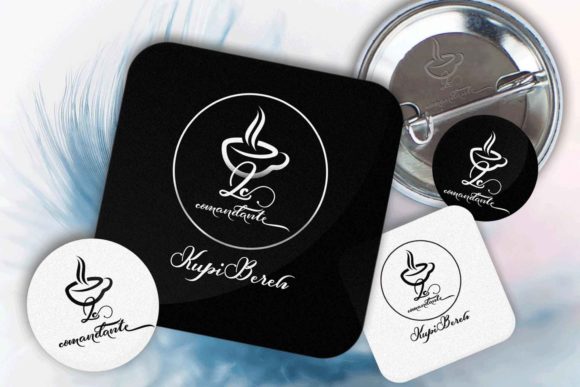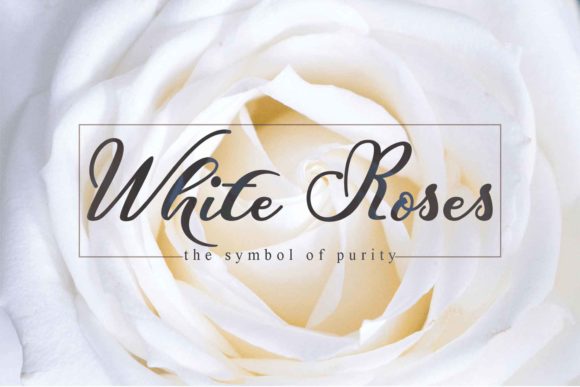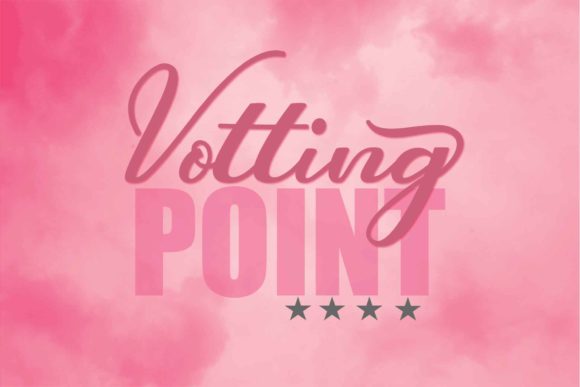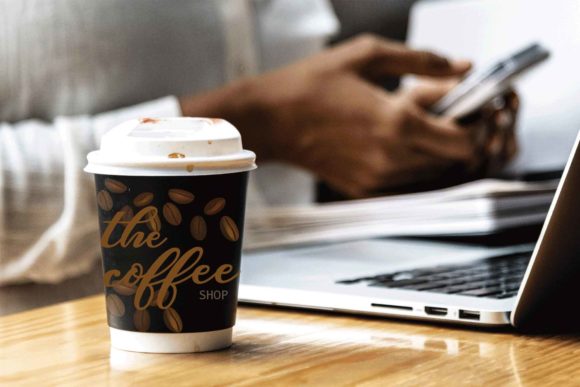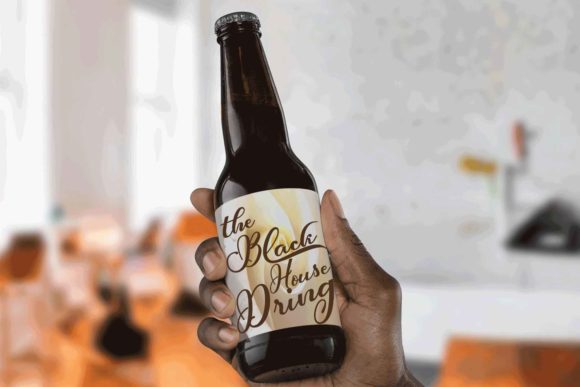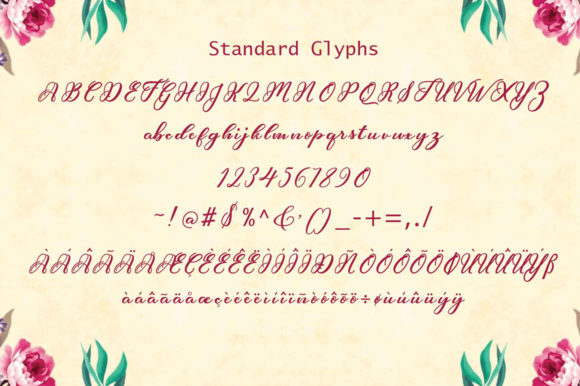
Discover the Joy of Hunkydory Font
Have you ever found yourself staring at a blank canvas, searching for the perfect font to bring your creative vision to life? It’s a feeling we’re all too familiar with – the blank page staring back, begging for inspiration. But what if we told you that there’s a font that can spark that creative spark, and make your designs shine with its unique charm?
Enter Hunkydory Font, a sweet and friendly handwritten font that’s perfect for designers who crave a natural, one-of-a-kind style. This versatile font is designed to be PUA encoded, making it easy to access all of its beautiful glyphs and swashes. Whether you’re working on a children’s book, a wedding invitation, or a social media campaign, Hunkydory Font is the perfect companion to bring your ideas to life.
With Hunkydory Font, the possibilities are endless – and that’s what makes it so valuable for designers. Its unique style and ease of use make it a go-to choice for creatives who want to add a personal touch to their work.
Hunkydory Font Key Features
- Font Family: Hunkydory is a script font designed to evoke a sense of whimsy and playfulness.
- Unique Characteristics: The Hunkydory font features a unique blend of cursive and handwritten styles, with subtle imperfections that give it a hand-drawn feel.
Hunkydory Font Review
I’ve had the chance to work with the Hunkydory font, and here’s my honest take. ✨ One of the things that works well is its playful and modern vibe. The font is perfect for creating eye-catching headings and titles that will grab the attention of your audience. Its unique character set also lends itself well to creating a distinctive brand identity.
Another plus is its versatility. The Hunkydory font is suitable for a wide range of applications, from digital interfaces to print materials. It’s also highly legible, even at small font sizes, which makes it a great choice for body text.
However, I do have some concerns about the Hunkydory font. ⚠️ One of the main limitations is its lack of support for certain languages. If you’re planning to use this font for multilingual projects, you may encounter issues. Additionally, the font’s character set is not as comprehensive as some other fonts in its category.
In conclusion, the Hunkydory font is a solid choice for designers who want to add a touch of modernity to their projects. While it has some limitations, its unique character set and versatility make it a great option for creating distinctive brand identities. However, it’s essential to weigh the pros and cons before deciding whether this font is right for your project.
- Playful and modern vibe
- Unique character set
- Highly legible
- Versatile
- Lack of support for certain languages
- Not as comprehensive character set
The Hunkydory Font is a playful, cursive font that is perfect for:
- Gift tags and wrapping paper
Can I customize Hunkydory to fit my specific design needs?
While Hunkydory is a high-quality font with a unique design, it is not designed to be heavily customized. However, you can use font editing software to make minor adjustments to the font’s spacing, kerning, and other characteristics. For more extensive customizations, we recommend working with a professional font designer or typographer.